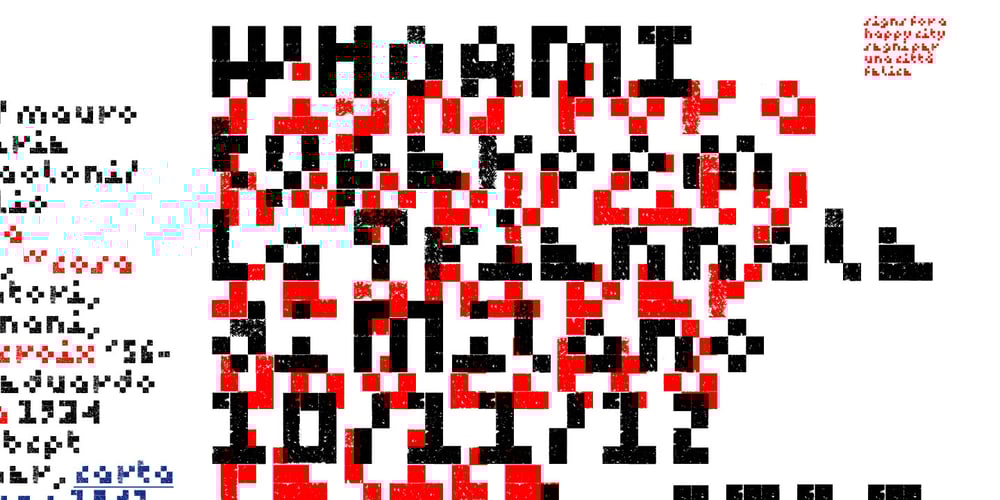
DF Riga Font Family was designed by Ko Sliggers and published by Dutchfonts. DF Riga contains 1 styles and family package options. DF Riga is a minimal bitmap typeface which works very well in small sizes both on your screen and on paper. But… if you want to express its deep beauty, use it in display sizes and the smell of ink is there. These typefaces (DF-A BIT, DF-Riga and DF-Dudok) owe their existence to the excellent letterpress printing of Hanneke Briër at the Grafisch Centrum Groningen. Beyond ‘the perfect’ there is a lot to get, it is made, you can see that.